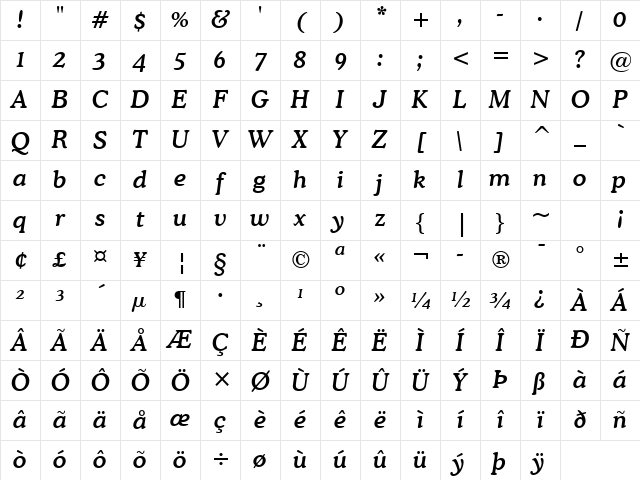
Cooper Md BT Medium Italic
Cooper Md BT Family
Complete Cooper Md BT Medium Italic glyph index. Displaying only characters natively supported by Cooper Md BT Medium Italic font.
Design Context for Cooper Md BT
Cooper Md BT is a composed and adaptable typeface that performs quietly and consistently across a wide range of design contexts. The slanted form adds forward momentum and visual energy.
Pro Tip: Use Cooper Md BT for emphasis, pull quotes, and subheadings where its slanted energy can add rhythm to the layout.